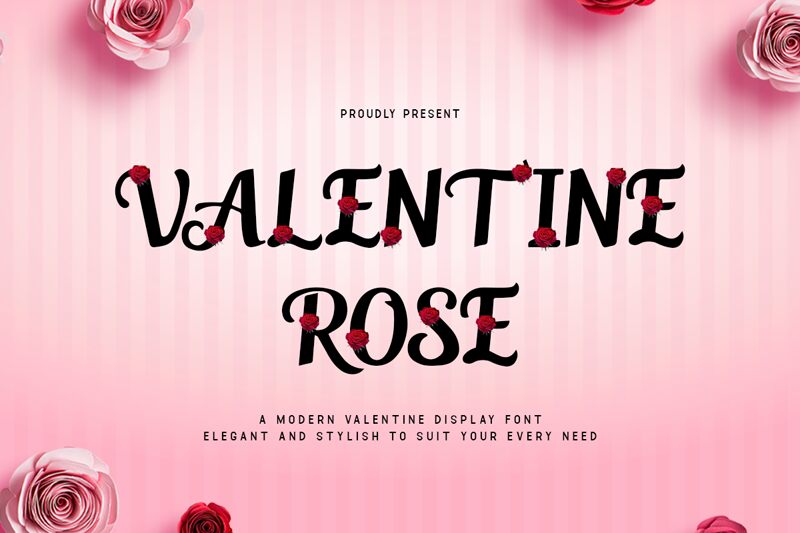
Valentine Rose font by Kong Font is a free holiday script typeface that brings dramatic romance to every word. Its flowing strokes, petal-like curves, and inky, slightly gothic flair make text feel lush and hand-crafted, like a love note written with a calligraphy pen. The letters cluster together in a rich texture, giving headlines a bold, romantic presence without feeling stiff or formal.
Using Valentine Rose, this free font shines on Valentine cards, wedding signage, chocolate or floral packaging, romantic quote posters, gift tags, and themed social media graphics. It works beautifully when you set it large for short phrases, then pair it with a clean sans serif for body copy to keep everything readable and modern.